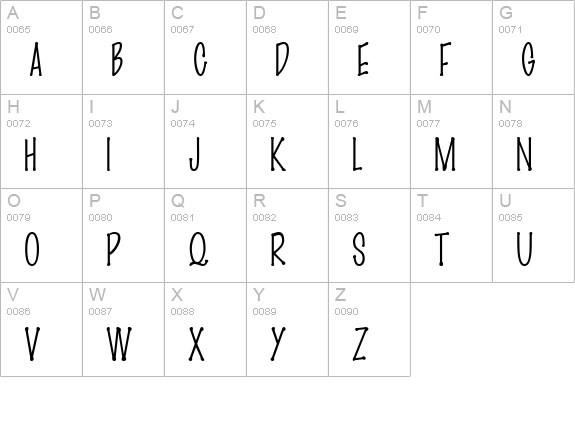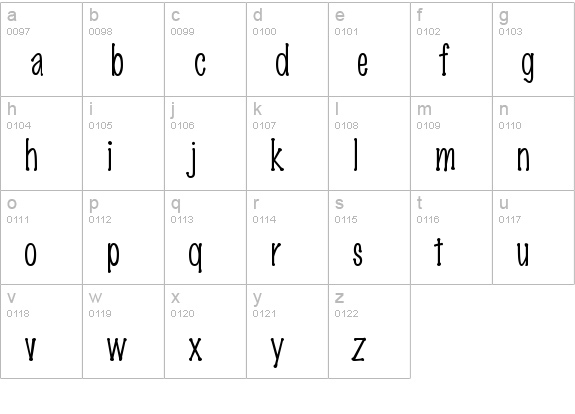
Marker FinePoint Font Details
Introducing Marker FinePoint font, a versatile and expressive typeface that adds a touch of creativity to any project. This font is perfect for those seeking to make a bold statement, whether it's in print or digital designs. Marker FinePoint font features a unique hand-drawn aesthetic, capturing the essence of a marker pen with its fine, precise lines. Its slightly slanted and elongated characters exude a sense of energy and movement, making it an ideal choice for eye-catching headings, logos, and signage. With a wide range of glyphs and ligatures, Marker FinePoint font offers endless possibilities for customization and personalization. Its extensive character set includes uppercase and lowercase letters, numbers, punctuation marks, and special symbols, ensuring that you have all the tools you need to bring your creative vision to life. But the best part? Marker FinePoint font is available for free! That's right, you can download this incredible typeface without spending a dime. Simply head over to FontsMarket.com, where you'll find Marker FinePoint font ready and waiting for you to explore its unlimited potential. Whether you're a graphic designer looking to add a playful touch to your next project or a student wanting to make your presentations stand out, Marker FinePoint font is the perfect choice. Its versatility and accessibility, combined with its stunning aesthetic, make it a must-have for anyone seeking to make a lasting impression. So why wait? Discover the endless creative possibilities that Marker FinePoint font offers and download it for free at FontsMarket.com today. Let your imagination run wild and watch as your designs come to life with this exceptional typeface.